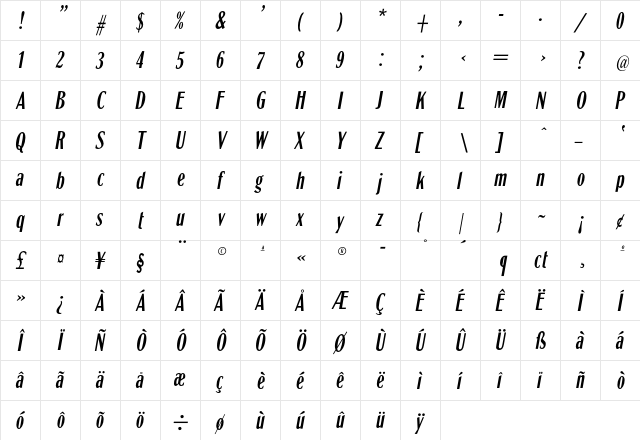
GlobeExCondL-Oblique Regular Font Preview
Design Context for GlobeExCondL-Oblique Typeface
GlobeExCondL-Oblique offers clean, dependable letterforms without strong stylistic allegiance, making it a practical choice for designers who need flexibility. The dynamic lean of this cut emphasises speed and emphasis in any layout. The condensed width makes it efficient for tight spaces without sacrificing legibility.
Pro Tip: Use GlobeExCondL-Oblique for emphasis, pull quotes, and subheadings where its slanted energy can add rhythm to the layout.